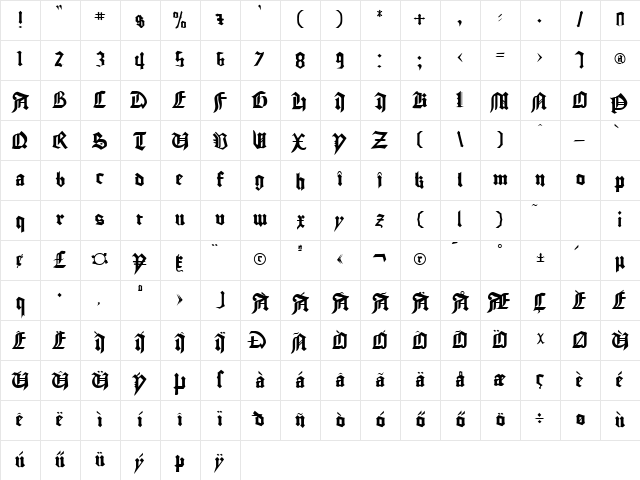
GoodCityModern Medium
Design Context for GoodCityModern
GoodCityModern is a composed and adaptable typeface that performs quietly and consistently across a wide range of design contexts.